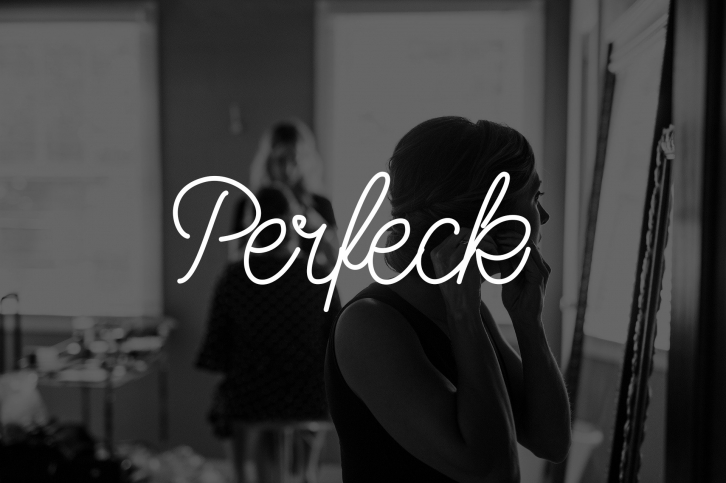
PerfeckSignature is a great font that was designed by Fiqiart. Imagine the amount of combinations you can create using this font! The archive is 7.62 MB and it was released on March 2, 2020. PerfeckSignature looks beautiful on wedding invitations, greeting cards, logos, posters, labels, t-shirt designs, logos, business cards and is perfect for use in ink or watercolor works, fashion, magazines, packaging and food menus, children's books and more!